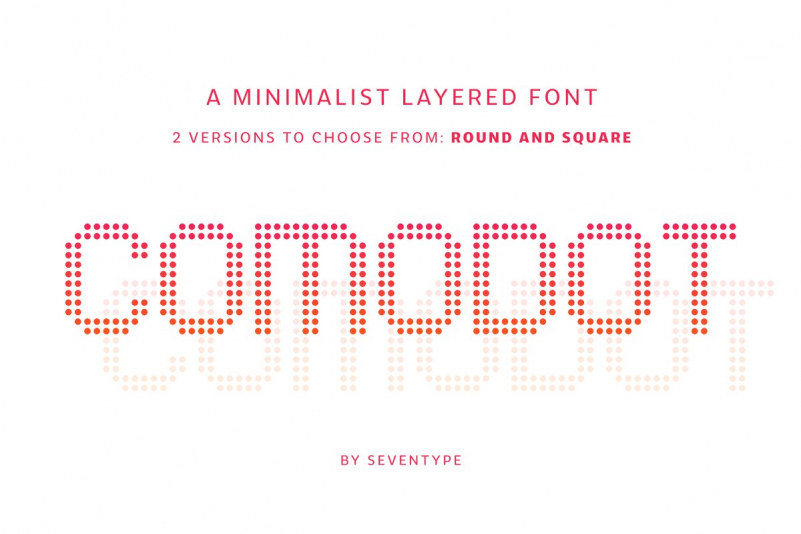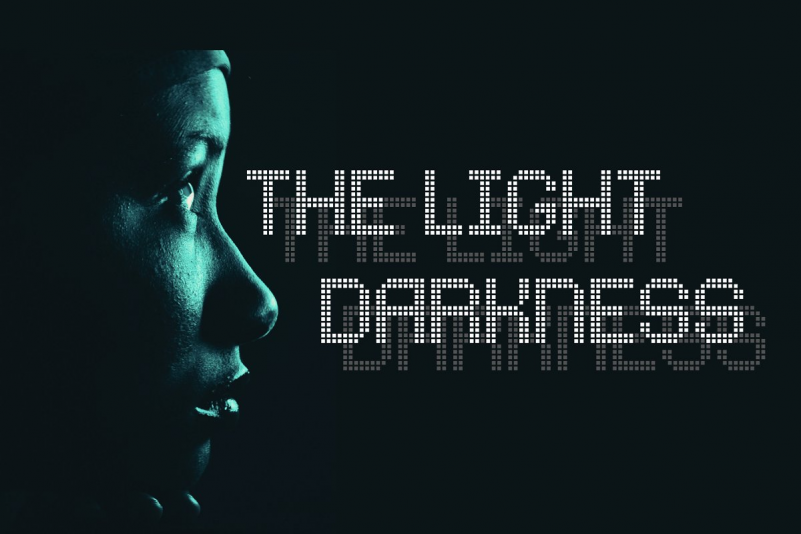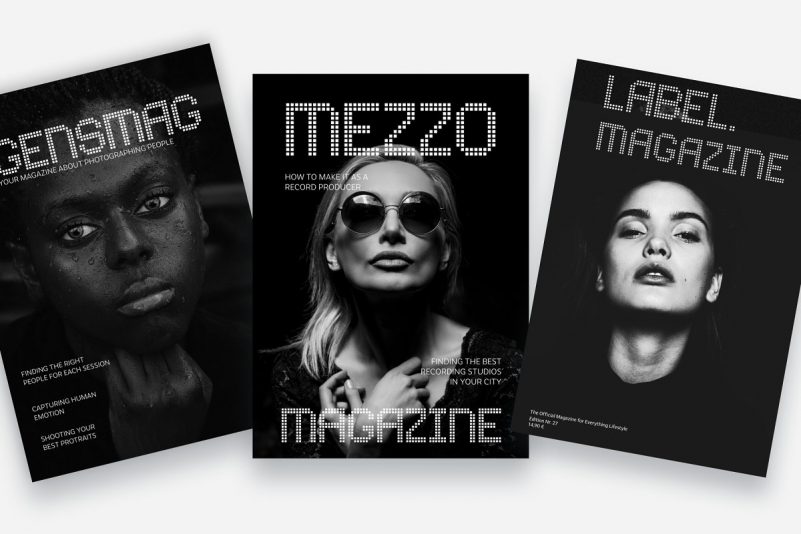
Comodot Font
Comodot is a minimalist layered font family with a pixelated yet sophisticated look. This family is composed of 4 fonts: Round and square with top and bottom layers.
You can either use just the top layer or top and bottom layer together to create a shadowed effect.
Comodot supports most Latin languages. It also comes with arrows and even some fun dingbats!
This font is great for display purposes or even logos. Use it for headlines, posters, magazines, book covers, just anything that needs to stand out.